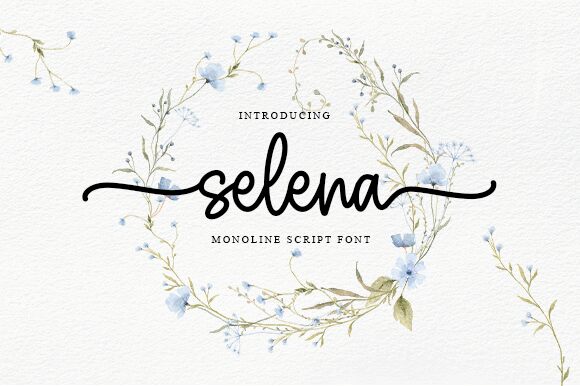
Selena
Selena, a creation by Graphix Line Studio, brings the charm of handwritten artistry to the digital realm. With a semi-light weight that delicately dances on the page, Selena offers an aesthetic that is both approachable and sophisticated. Its fluidity and expressive style echo the spontaneity of ink on paper, making it an ideal choice for projects seeking a personal touch.
The elegance inherent in Selena's design makes it suitable for invitations, branding materials, and heartfelt messages where warmth is as important as professionalism. Its versatility ensures that Selena can adapt to various creative pursuits without losing its distinctive character. This font is more than mere type—it's a statement of grace and individuality.